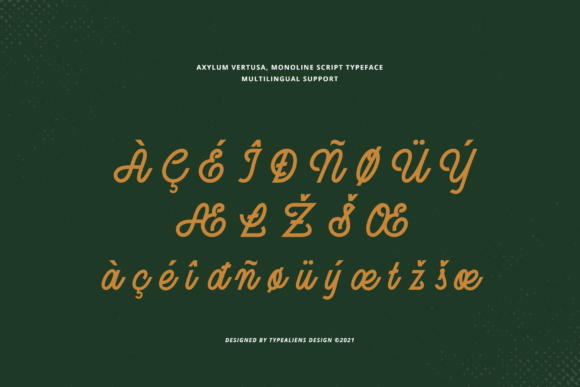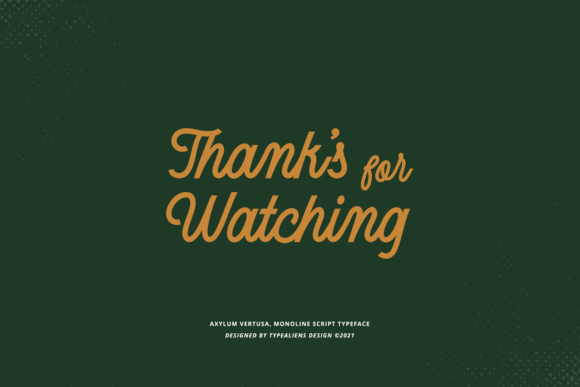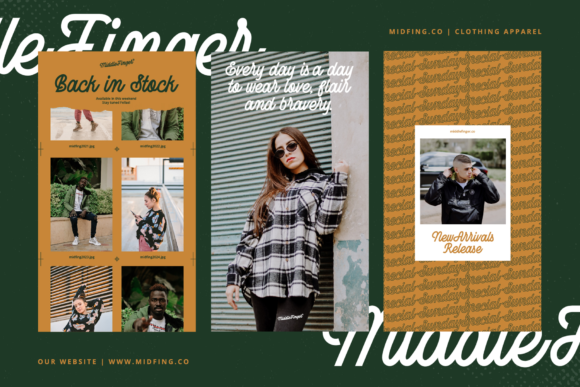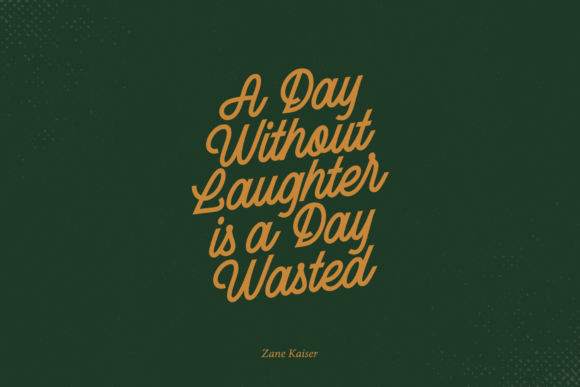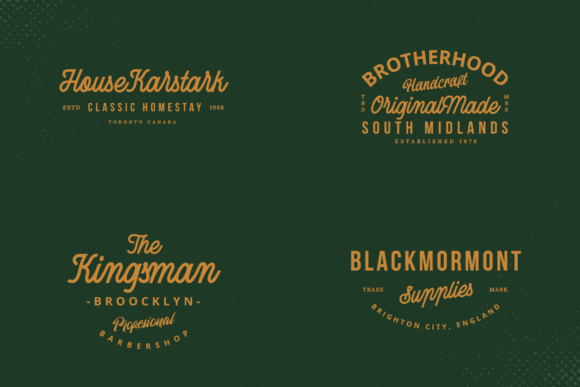
About Axylum Vertusa Font
Axylum Vertusa is a truly elegant and refined script font that exudes sophistication and charm. With its contemporary style and impeccable form, this font is inspired by the timeless beauty of classic calligraphy. Its balance of not being too thin or too thick allows it to create a harmonious and versatile look that enhances the beauty of any project it graces.
The graceful and flowing strokes of Axylum Vertusa give it a sense of movement and grace, making it the perfect choice for projects that require a touch of elegance and sophistication. Whether you’re designing logos, branding, invitations, stationery, or social media graphics, Axylum Vertusa will add a sense of class and luxury to your designs.
The versatility of Axylum Vertusa is one of its greatest strengths. It can be used for a wide range of projects, from formal and professional designs to more playful and creative ones. Its timeless and classic appeal makes it suitable for both traditional and modern contexts, ensuring that it will remain a relevant and stylish choice for years to come.
The attention to detail in Axylum Vertusa is evident in its impeccable form and smooth curves. Every letter has been carefully crafted to ensure a seamless and visually pleasing appearance. This font is a true work of art that will elevate the aesthetics of your projects and make them truly stand out.
Axylum Vertusa is a font that is sure to impress and captivate with its contemporary yet classic look. It offers a touch of refinement and beauty that will enhance the overall impact of your designs. Whether used for headlines, logotypes, branding, or any other project, Axylum Vertusa is a font that will leave a lasting impression on your audience.
In conclusion, Axylum Vertusa is an elegant script font that brings a contemporary and timeless charm to your projects. Its impeccable form and versatile nature make it an excellent choice for a wide range of designs. Embrace the beauty and sophistication of Axylum Vertusa to add a touch of class and elegance to your creative endeavors.